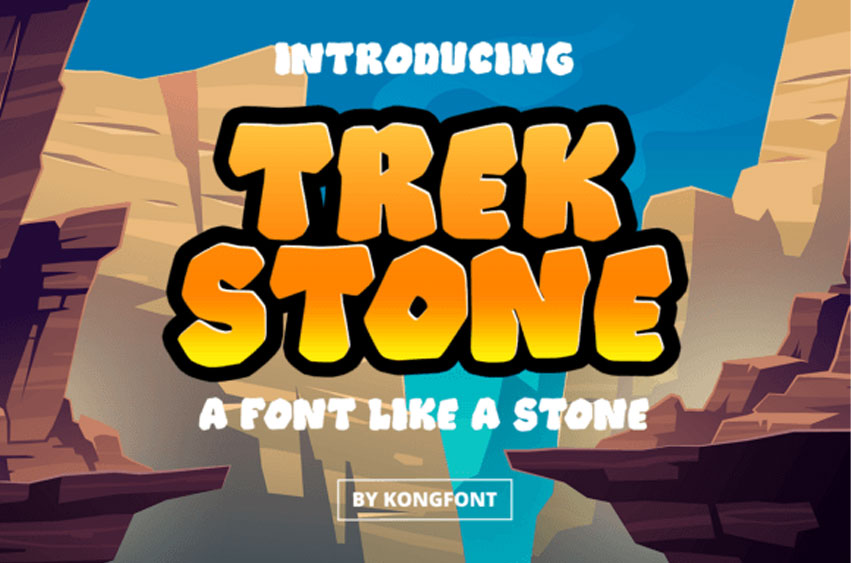
Trekstone Font
Trekstone Font is a playful and vibrant display font designed specifically for kids-themed projects. With its cheerful and whimsical style, this font is perfect for children’s books, toys, games, party invitations, school materials, and more.
Trekstone’s bold and fun design captures the imagination, making it an ideal choice for creating eye-catching and kid-friendly designs.